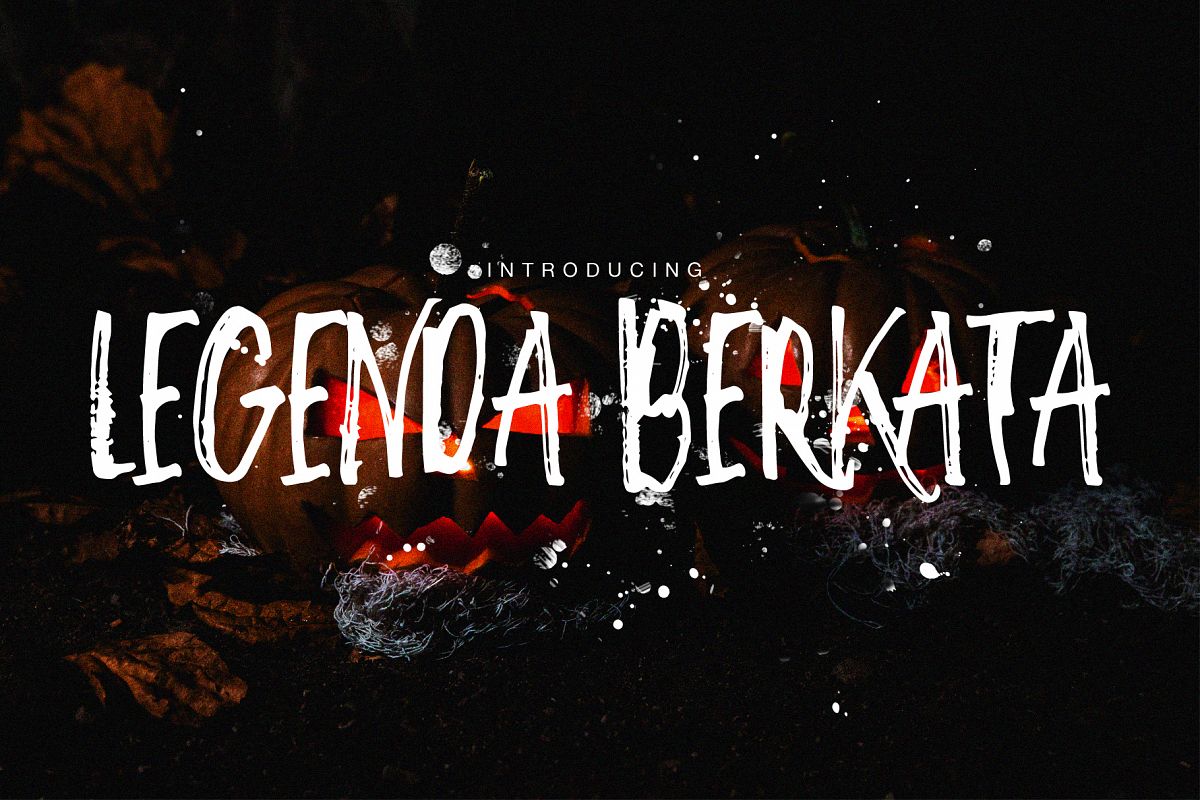
Legenda Berkata Rough Font
Legenda Berkata
Introducing
Legenda Berkata (Legend Said) font, rough font from manual hand drawn
• Uppercase, lowercase, number and symbol
FEEL THE HALLOWEEN VIBE!